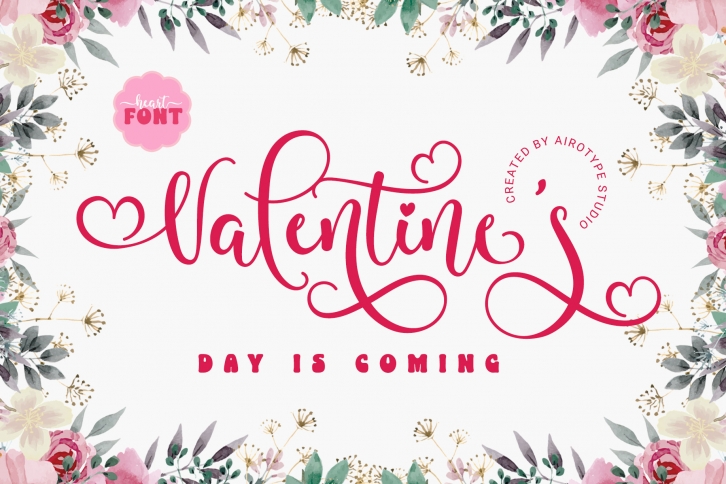
Valentines is bouncy script font. This is beautiful, girly, and chic. This font has tail swash for its front and back. It also has heart swash.
Valentines is perfect font for design with elegant and lovely vibes, such as Valentines Day, wedding, farmhouse design, and others.